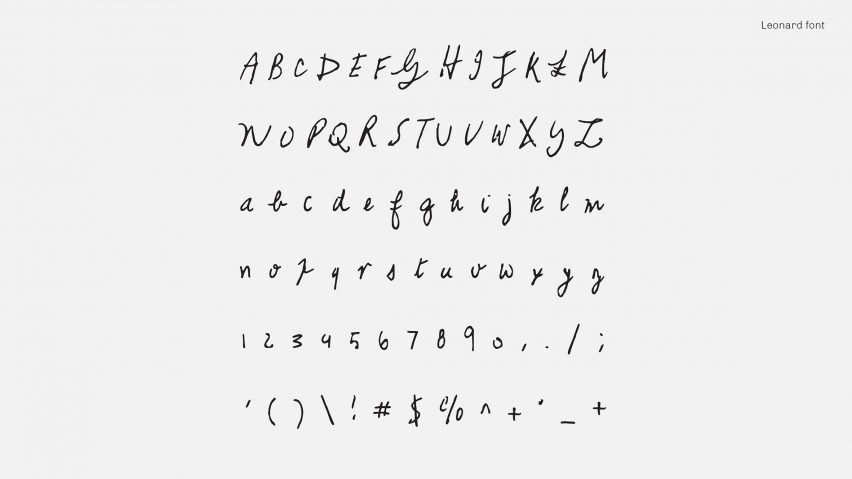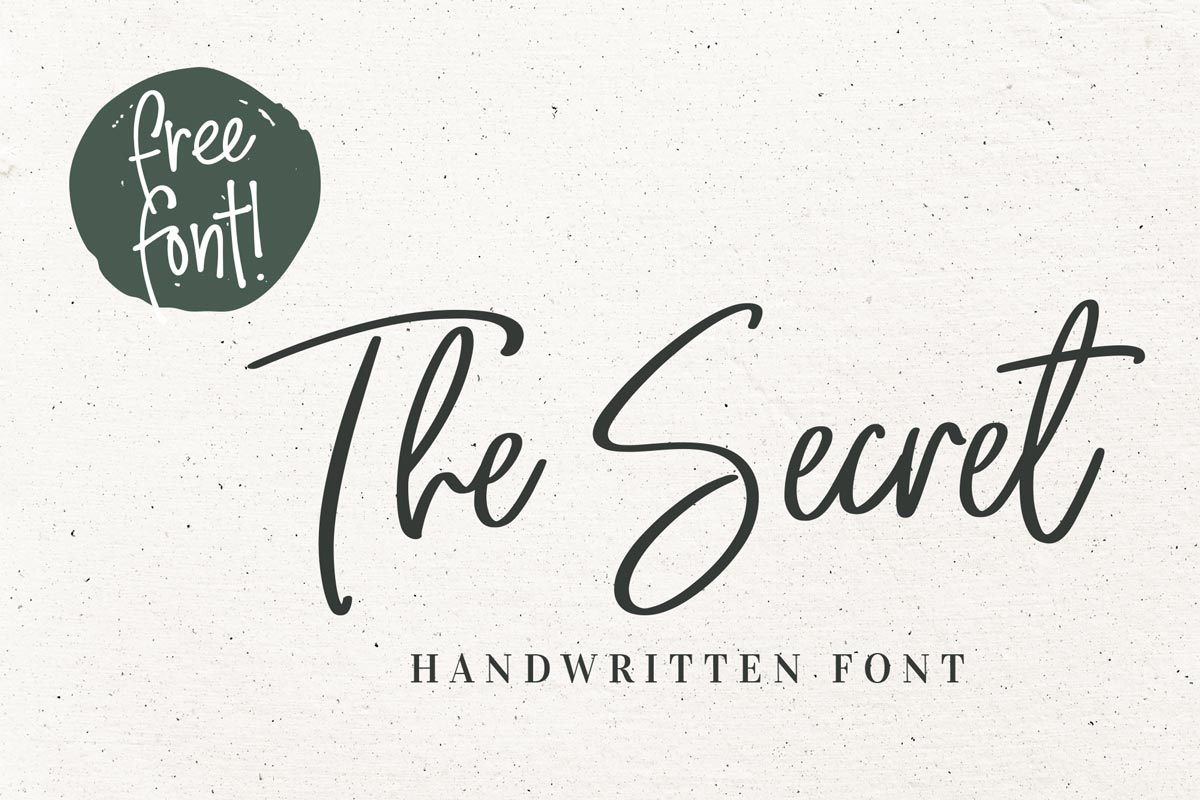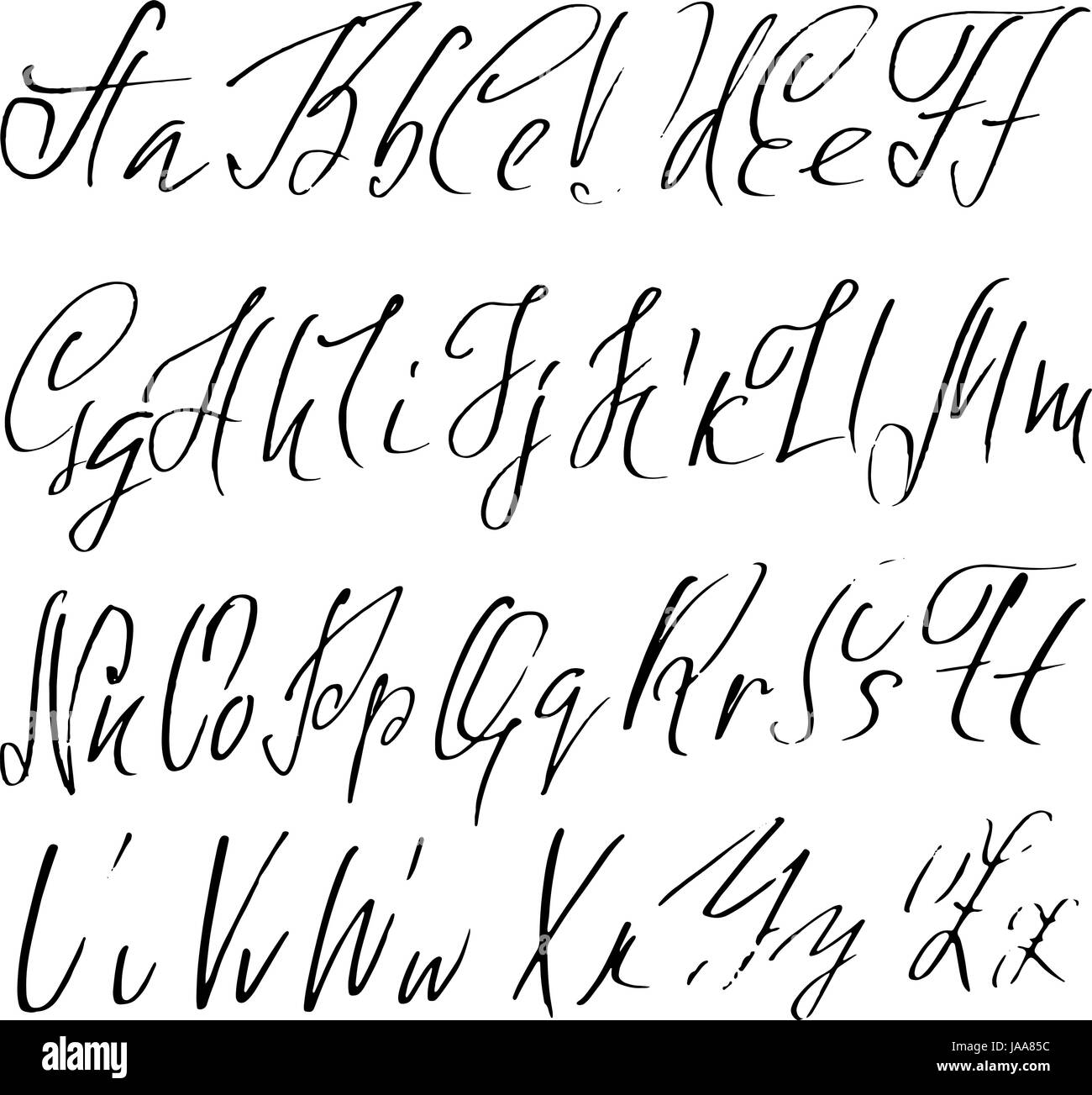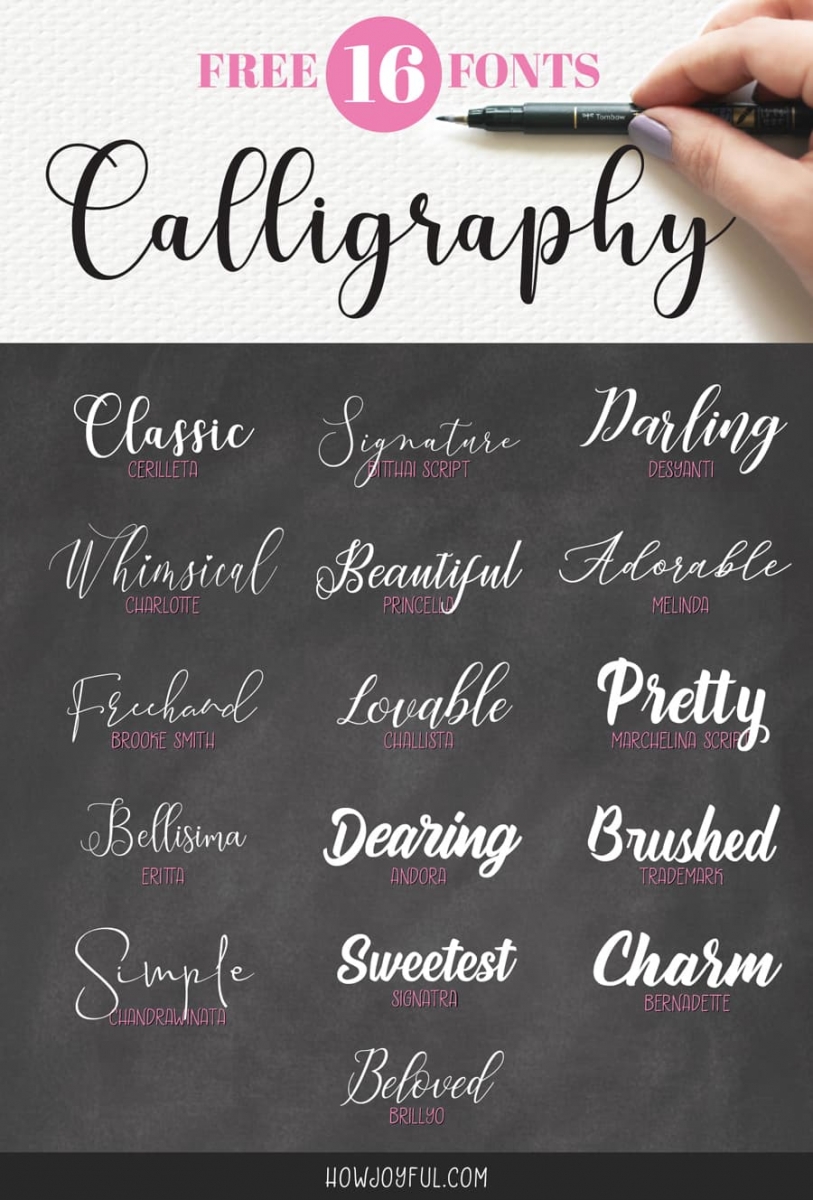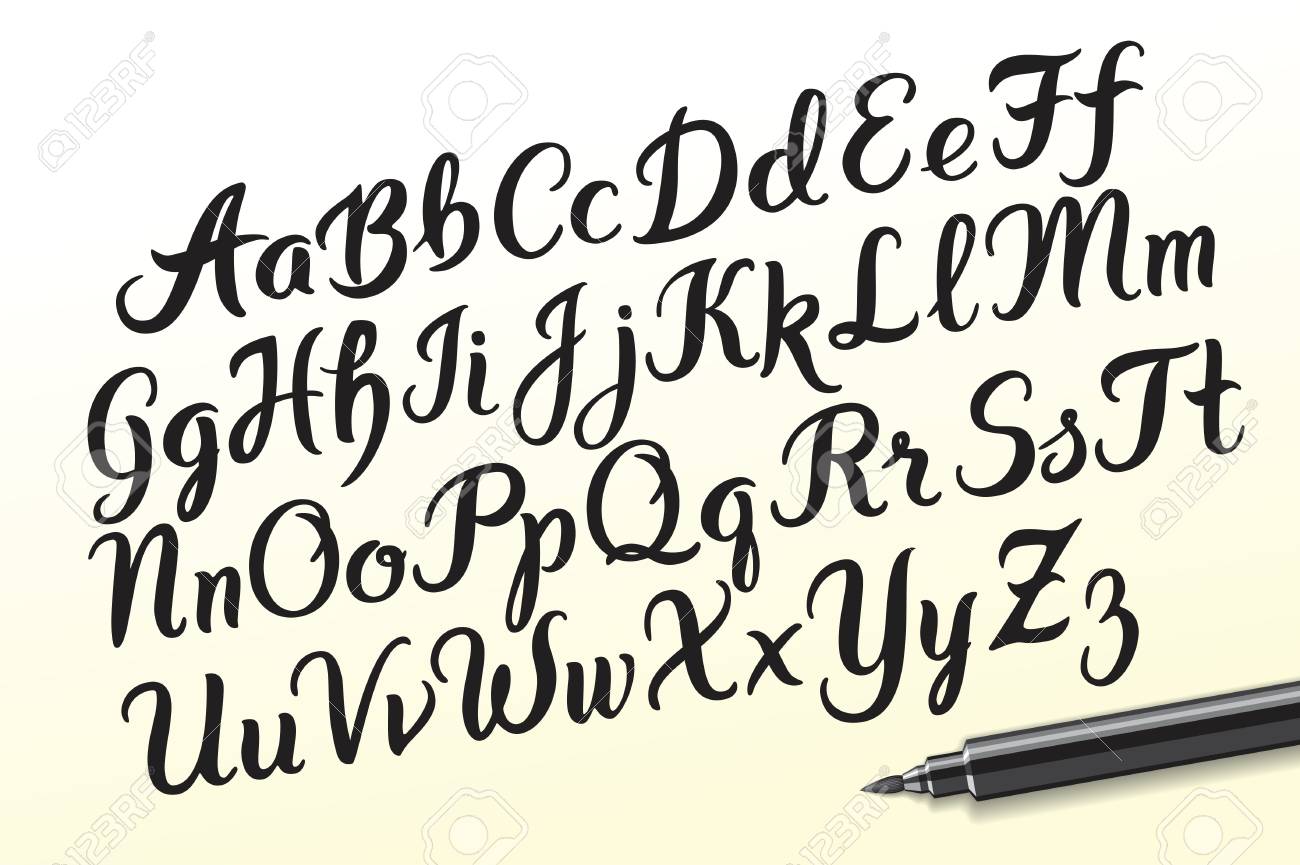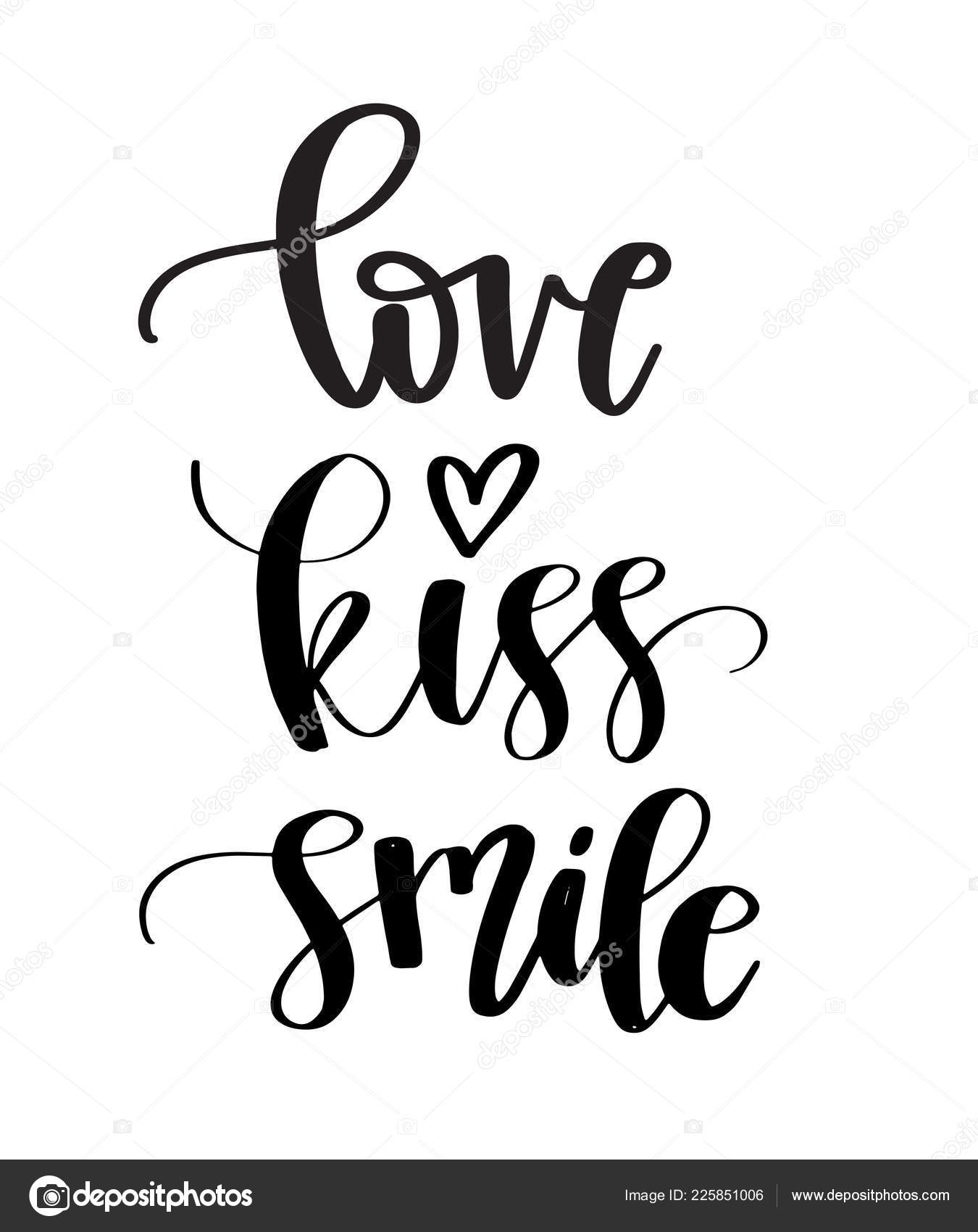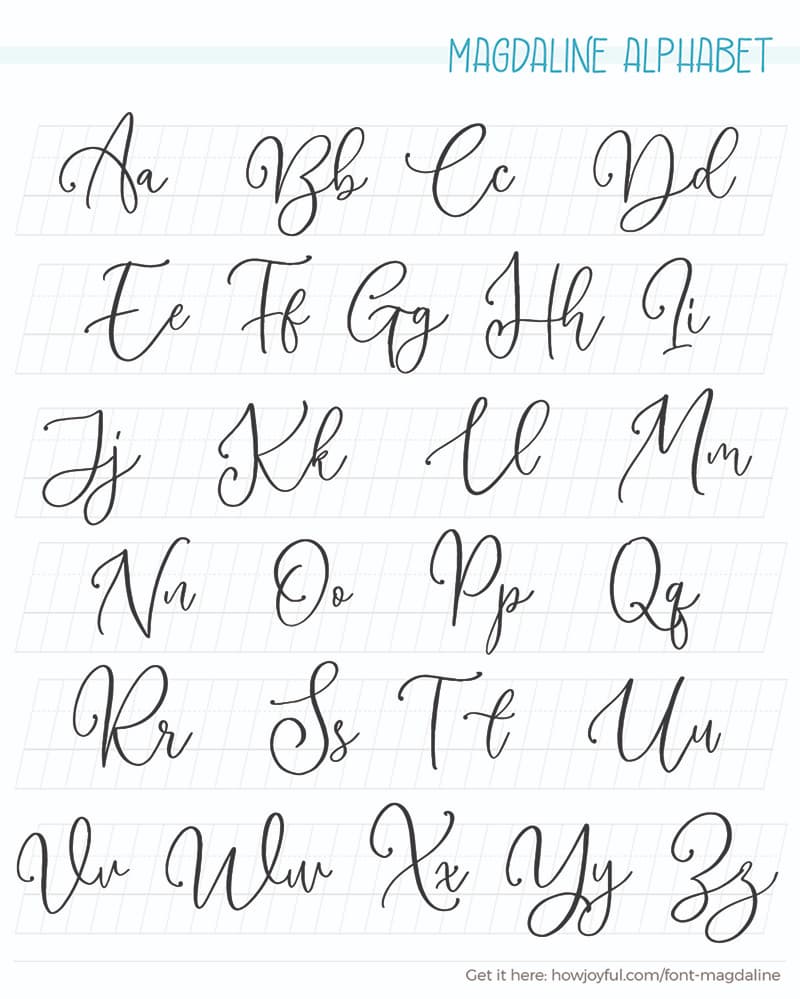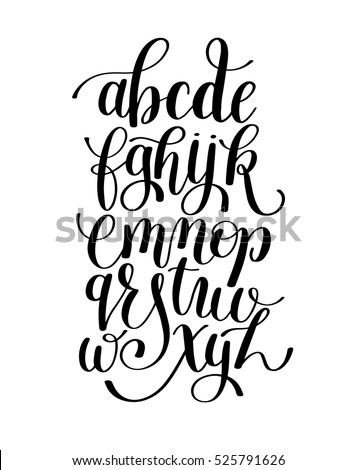
Hand lettering and calligraphy are both subsets of lettering which is the art of drawing letters in an illustrative way. Can be used for logo designs AquariusLogos 45 out of 5 stars 1190 Sale.
Our handwritten fonts are an opportunity to address personal and loving issues.
Looking for Hand Lettering fonts. Font bundle Script fonts and hand lettering. Calligraphy is an art and the way in which the letters are drawn.
Page 1 of 3. Calligraphy is an ancient writing technique using flat edged pens to create artistic lettering using thick and thin lines depending on the direction of the stroke. Calligraphy font including brush script fonts.
They often look as if they were drawn with flat-tipped pens or brushes. Inspired by the ancient local Indonesian. Looking for Hand Drawn Calligraphy fonts.
With lettering each letter is drawn by hand and can vary slightly in size and shape. Looking for Handwritten Calligraphy fonts. The writing is readable but is usually extravagant and embellished with flourishes.
Calligraphy is an artistic writing style where the pressure is varied to create thick and thin lines all in a single stroke. Standard and inlineThis font is perfect for custom labels news invite wedding living room skin care doctor makeup artist organizer cafe photography etc. Typography refers to the way that you use the letters.
Handwritten and personal letters. The main sub-styles are traditional calligraphy and modern calligraphy. Ninetails is a handwritten font it has two different styles.